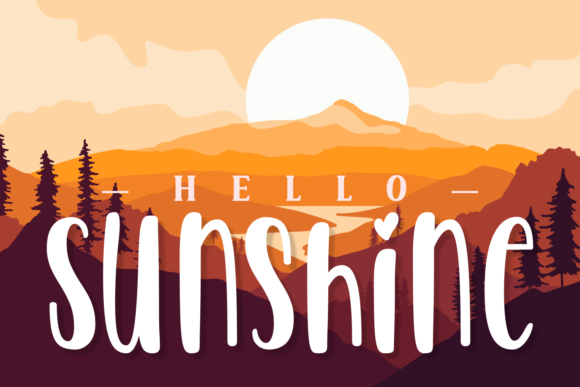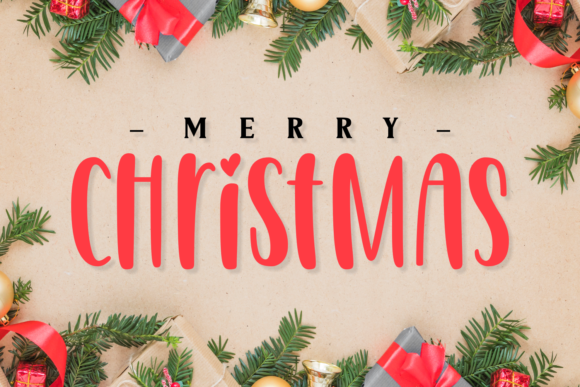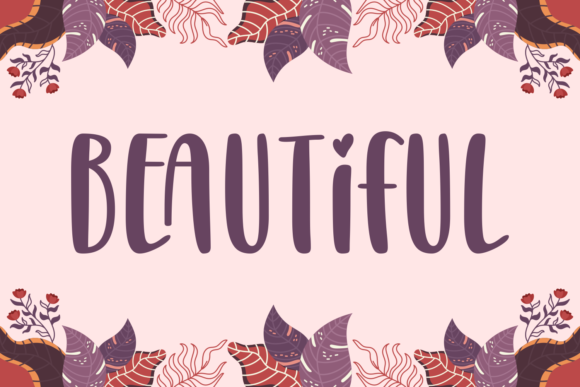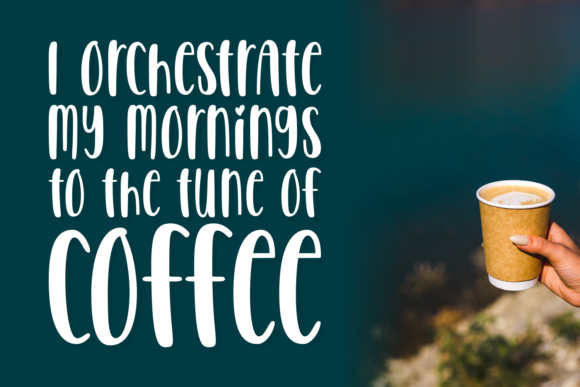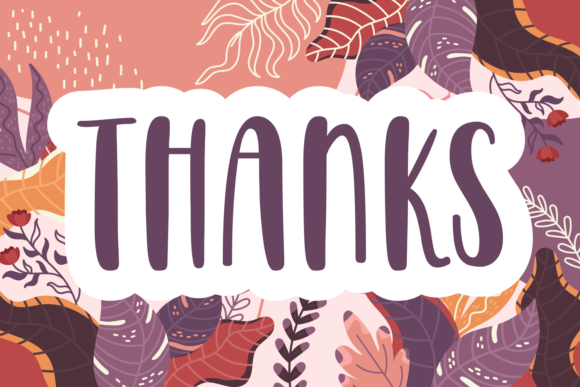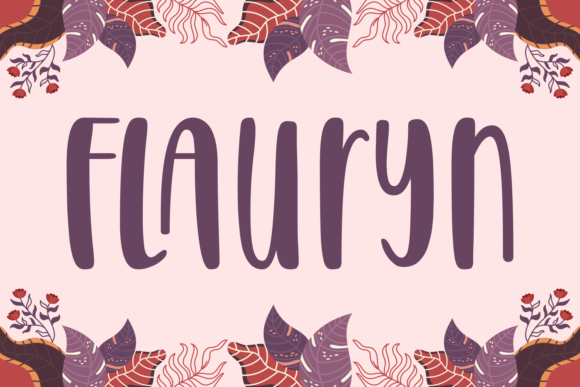
Flauryn Font: The Playful and Friendly Display Font for All Occasions
Are you tired of using the same old fonts for your designs and crafts? Look no further than Flauryn Font, a playful and friendly display font that’s perfect for a variety of projects. Whether you’re a designer, crafter, or simply someone who loves to get creative, Flauryn Font is sure to become your new go-to font.
What is Flauryn Font?
Flauryn Font is a display font that’s designed to add a touch of playfulness and friendliness to your designs. Its unique and quirky style makes it perfect for a wide range of projects, from digital designs and presentations to crafts and greeting cards.
Key Features of Flauryn Font
So, what makes Flauryn Font so special? Here are just a few of its key features:
- Playful and friendly style: Flauryn Font has a unique and playful style that’s sure to add a touch of personality to your designs.
- Highly versatile: Whether you’re working on a digital design, a craft project, or a presentation, Flauryn Font is the perfect choice.
- Easy to read: Despite its playful style, Flauryn Font is still highly legible and easy to read, making it perfect for use in a variety of contexts.
- Perfect for titles and headings: Flauryn Font is designed to make a statement, making it perfect for use in titles and headings.
Uses for Flauryn Font
So, what can you use Flauryn Font for? The possibilities are endless! Here are just a few ideas to get you started:
- Crafts: Flauryn Font is perfect for use in craft projects, such as scrapbooking, card making, and other paper crafts.
- Digital design: Flauryn Font is a great choice for digital designers, and can be used in a variety of contexts, from social media graphics to website headers.
- Presentations: Add a touch of personality to your presentations with Flauryn Font, perfect for titles, headings, and other display text.
- Greeting cards: Flauryn Font is perfect for use in greeting cards, adding a playful and friendly touch to your designs.
Why Choose Flauryn Font?
So, why should you choose Flauryn Font for your next project? Here are just a few reasons:
- Unique and eye-catching: Flauryn Font is a unique and eye-catching font that’s sure to make your designs stand out.
- Highly versatile: Flauryn Font can be used in a wide range of contexts, from digital designs to crafts and presentations.
- Fun and playful: Flauryn Font adds a touch of fun and playfulness to your designs, making it perfect for projects that require a bit of personality.
In conclusion, Flauryn Font is a playful and friendly display font that’s perfect for a wide range of projects. Its unique and quirky style makes it perfect for adding a touch of personality to your designs, and its high versatility makes it suitable for use in a variety of contexts. Whether you’re a designer, crafter, or simply someone who loves to get creative, Flauryn Font is sure to become your new go-to font.